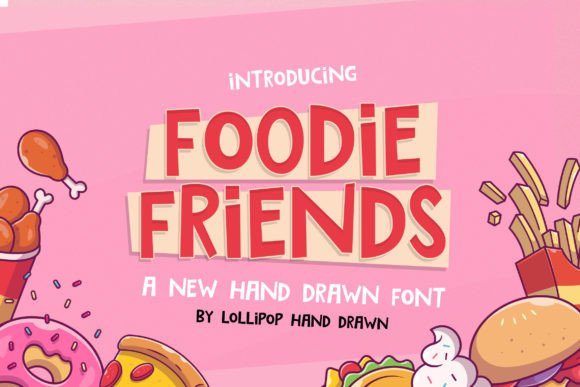
Get ready to tantalize your creative taste buds with Foodie Friends Font, the ultimate culinary companion for your Cricut crafting adventures! This delectable sans serif font family, crafted with love by Lollipop Hand Drawn, is more than just a collection of letters – it's a gateway to a world of sweet and joyful designs.
Picture this: you're whipping up a batch of personalized kitchenware, and Foodie Friends Font becomes your secret ingredient. Its playful, handwritten style dances across mugs, aprons, and tea towels, adding a dash of charm and personality to every creation. Dive into a flavor-filled menu of crafting possibilities, from whimsical recipe cards to mouthwatering market signs, all infused with Foodie Friends Font's unique flavor.
Step into the world of Foodie Friends Font and let your creativity run wild. Its versatile nature makes it the perfect choice for a multitude of projects, from cheerful birthday invitations to eye-catching social media posts. Imagine your designs bursting with life, each letter a tiny morsel of joy that captivates the senses.
Foodie Friends Font isn't just a font; it's an invitation to embark on a delightful journey of crafting and expression. Its charming personality will transform your projects into delectable treats that will leave a lasting impression. So, don't just collect fonts; collect moments of pure creative bliss with Foodie Friends Font!